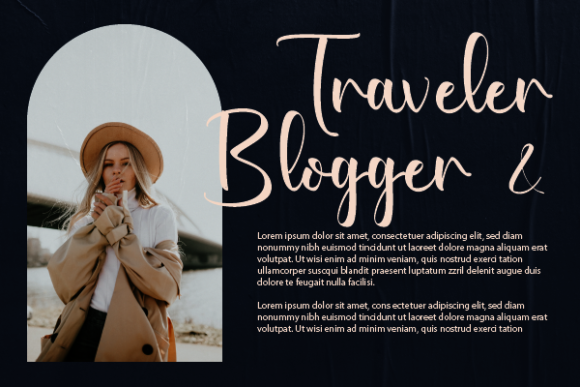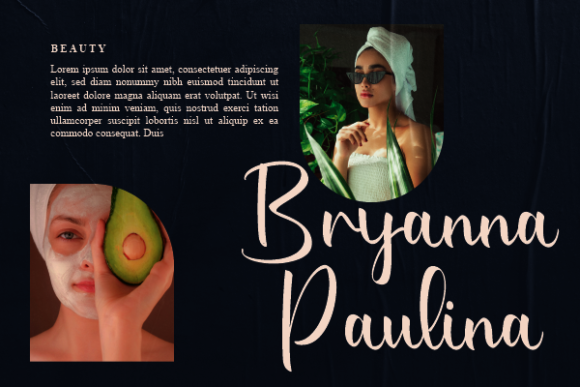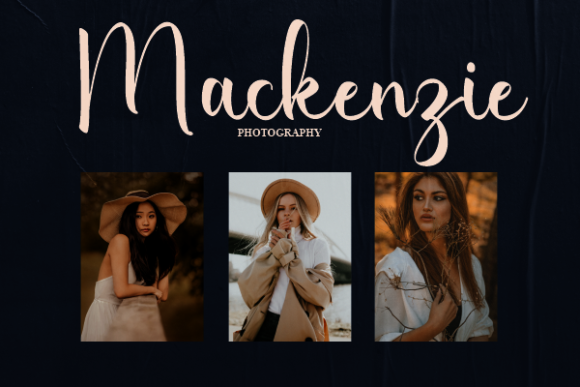
Introduction to Pullman Penelope Font
Do you ever find yourself stuck in front of your design screen, searching for the perfect font to bring your creative project to life? The blank page stares back at you, a constant reminder that the perfect design is just out of reach. But what if I told you that your search is over? Introducing the Pullman Penelope Font, a stunning handwritten font that’s sure to become your new go-to design resource.
With its elegant calligraphic influences and modern twist, the Pullman Penelope Font is the perfect addition to any high-quality design project. Whether you’re working on a logo, brochure, or social media graphics, this versatile font is sure to elevate your work to the next level. And the best part? You can download it for free, complete with a transparent background, making it easy to integrate into your design.
As a designer, you know that having the right tools can make all the difference between a good design and a great one. The Pullman Penelope Font is a valuable asset in your design arsenal, and we’re excited to share it with you. So why wait? Fall in love with the Pullman Penelope Font today and take your creative projects to new heights!
Key Features of Pullman Penelope Font
- High-quality design resource ideal for creative projects, offering a sophisticated and elegant aesthetic.
- Unique characteristics include its elegant script and refined flourishes, making it perfect for wedding invitations, branding, and other high-end design projects.
Honest Review: Pullman Penelope Font
I recently had the chance to work with the Pullman Penelope Font, and I must say, it’s been a game-changer for my design projects. This font is perfect for designers looking for a high-quality, elegant script font to add a touch of sophistication to their creative project.
- ✨ Works well for titles and headings due to its elegant and refined appearance
- ✨ Suitable for a wide range of design applications, including logos, branding, and marketing materials
- ✨ Includes a variety of weights and styles, making it easy to customize and adapt to different design needs
While the font is overall impressive, there are a few limitations to be aware of:
- ⚠️ May not be suitable for body text due to its script nature and limited legibility at smaller font sizes
- ⚠️ Some users may find the font’s elegance to be overused or cliché in certain design contexts
Overall, I’m thoroughly impressed with the Pullman Penelope Font. Its high-quality design and versatility make it an excellent addition to any designer’s toolkit, and its free download status only adds to its appeal. I highly recommend it to anyone looking to elevate their design projects with a touch of sophistication and elegance.
Tips for Getting the Most Out of Pullman Penelope Font
Use the Pullman Penelope Font on a transparent background to add a touch of sophistication to your designs.